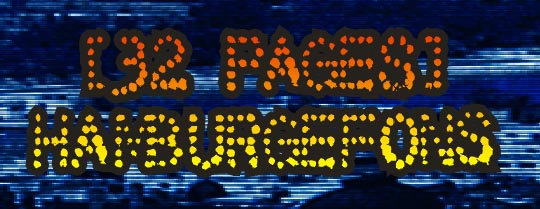
32 pages is a monospaced, below-128 font. All the letters are different, and there are no two dots that are the same. If you need other characters, you can email me and we'll work something out.
Darko Stanicic